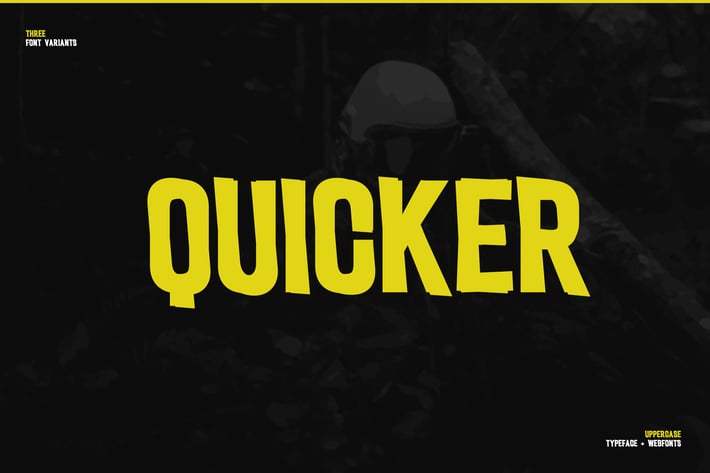
Quicker Modern Business Font
Quicker Sans Font Family
Quicker is a beautiful modern display font family. Quicker carries a powerful, unique, cute, artistic, and social character line with a premium finish, giving a new impression.
Quicker is perfectly crafted for logos, magazines, advertisements, websites, headlines, titles, captions, UIs, games, apps, films, apparel and more.
03 Font Weights
uppercase letters
multi-language support
numbers
* punctuation